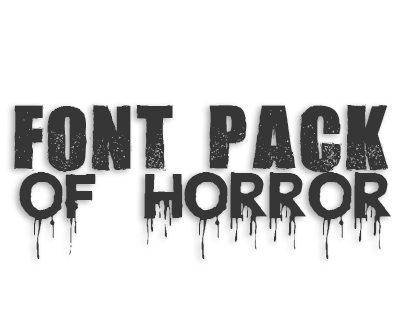
Horror Font Pack
A collection of our top selling horror fonts all in one pack for a low price. This font bundle includes 12 of our most popular horror & eroded fonts.
| 1. Abandon | 2. Blood Lust |
| 3. Rise Inside | 4. We Are Depraved |
| 5. The Unknown | 6. Summon The Executioner |
| 7. Just Die Already | 8. Cook County Jailhouse |
| 9. Dark Waters | 10. Crucifixion |
| 11. M Ponderosa | 12. Cannibal |